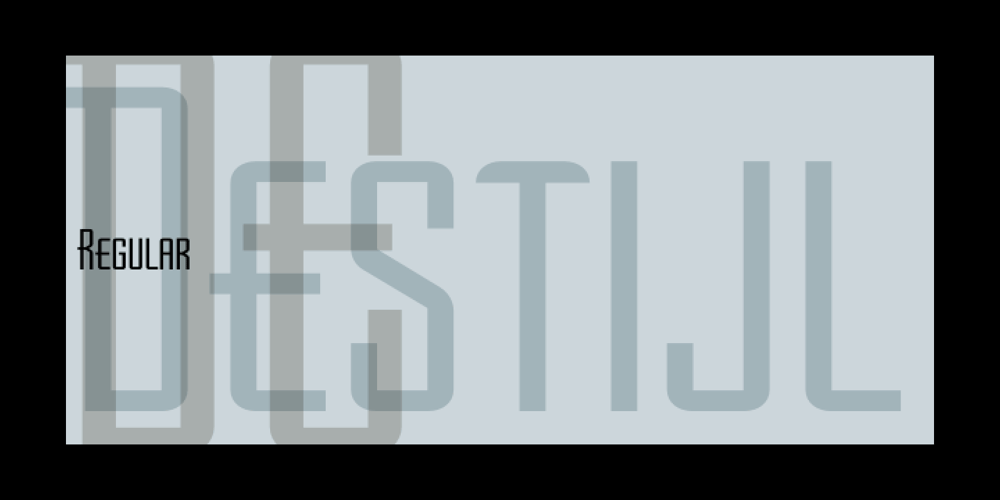
Destijl LP Font Family was designed by Garrett Boge and published by LetterPerfect. Destijl LP contains 2 styles and family package options. DeStijl is a “Constructivist” inspired type design, reminiscent of European industrial art movements of the early 20th century. Its highly rationalized forms serve both the retro look and modern design to good effect. The DeStijl Expert font provides slightly altered forms of the characters and is bundled freely with DeStijl Regular.